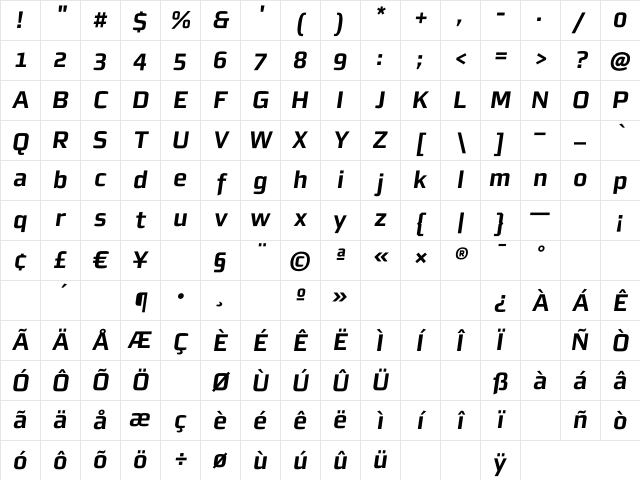
Complete MorganSnOffice Bold Oblique glyph index. Displaying only characters natively supported by MorganSnOffice Bold Oblique font.
MorganSnOffice is a composed and adaptable typeface that performs quietly and consistently across a wide range of design contexts. The slanted form adds forward momentum and visual energy. Its bold stroke weight gives it real presence on the page.